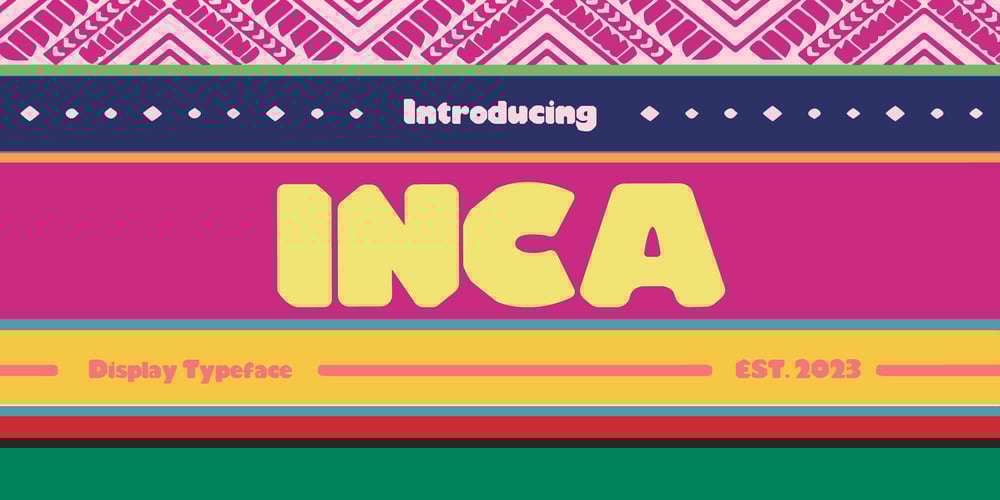
INCA Font Family was designed by Bivisyani Questibrilia and published by Alive as Always. INCA contains 1 styles and family package options. Inspired by Machu Picchu and the Peruvian people, INCA is a font that personifies the ancient civilisation of its namesake. Each letter takes on irregular indentations to signify the naturally eroded stones of the ancient capital, resulting in an organic and picturesque look. The font is best used for headlines and branding purposes, especially for organic or culturally significant products. It can be paired well with any modern sans serif that creates contrast with the font’s traditional look.